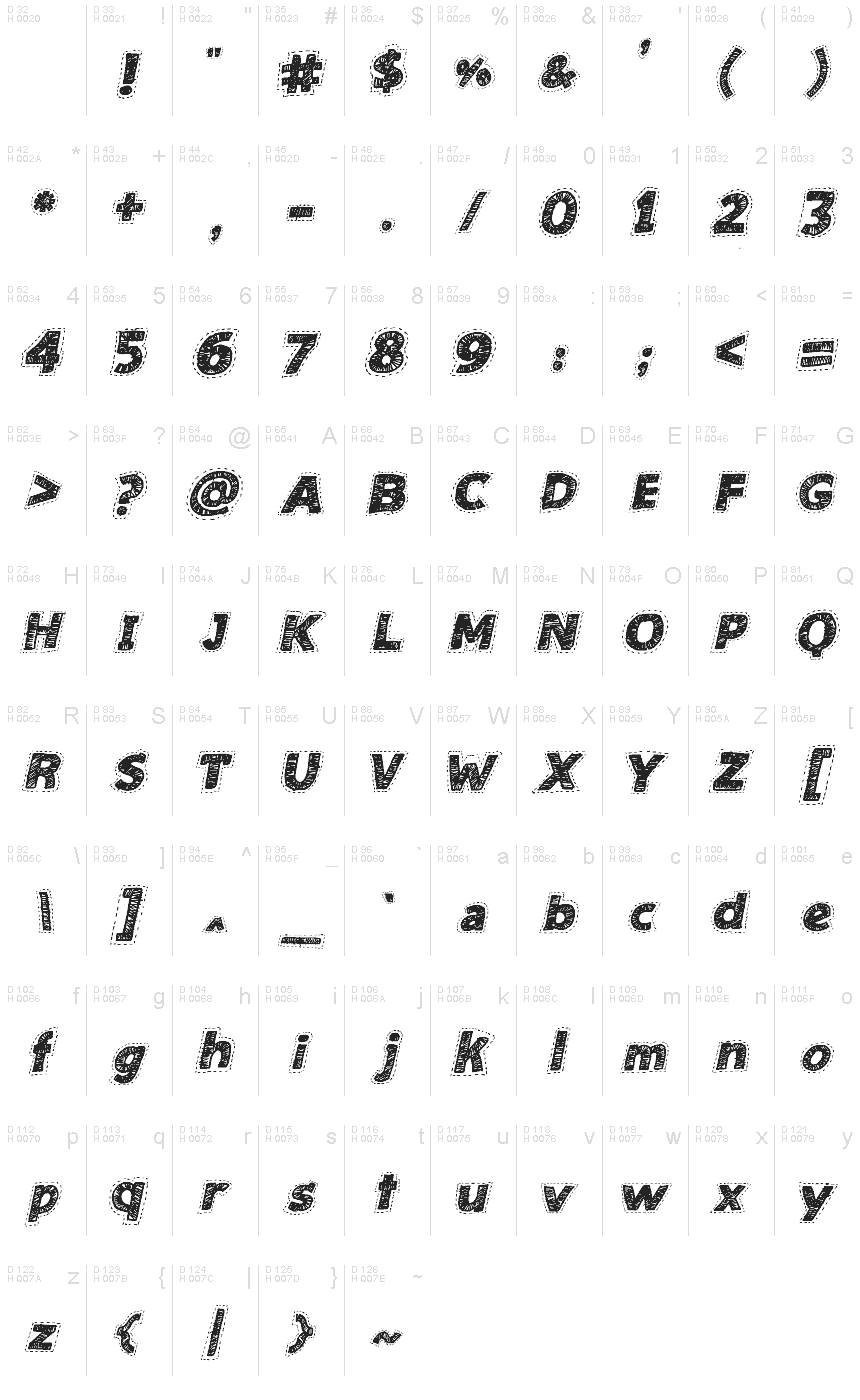
Needlework Good Italic
Needlework Good Italic font by Galdino Otten Fonts is a decorative display font uniquely inspired by handmade aesthetics. It features intricate patterns, a textured surface, and ornamental effects that contribute to an interesting craft-inspired look with a vintage feel attached. A bold appearance primarily characterizes this typeface edited with beautiful lines and sharp points.
Use Needlework Good Italic in invitations, greeting cards, book covers, Cookbooks, scrapbooks; pretty handwritten signatures; branding projects for crafts businesses; posters or flyers for museums and galleries exploring arts and crafts history. This free display font makes any project jump out from the crowd!